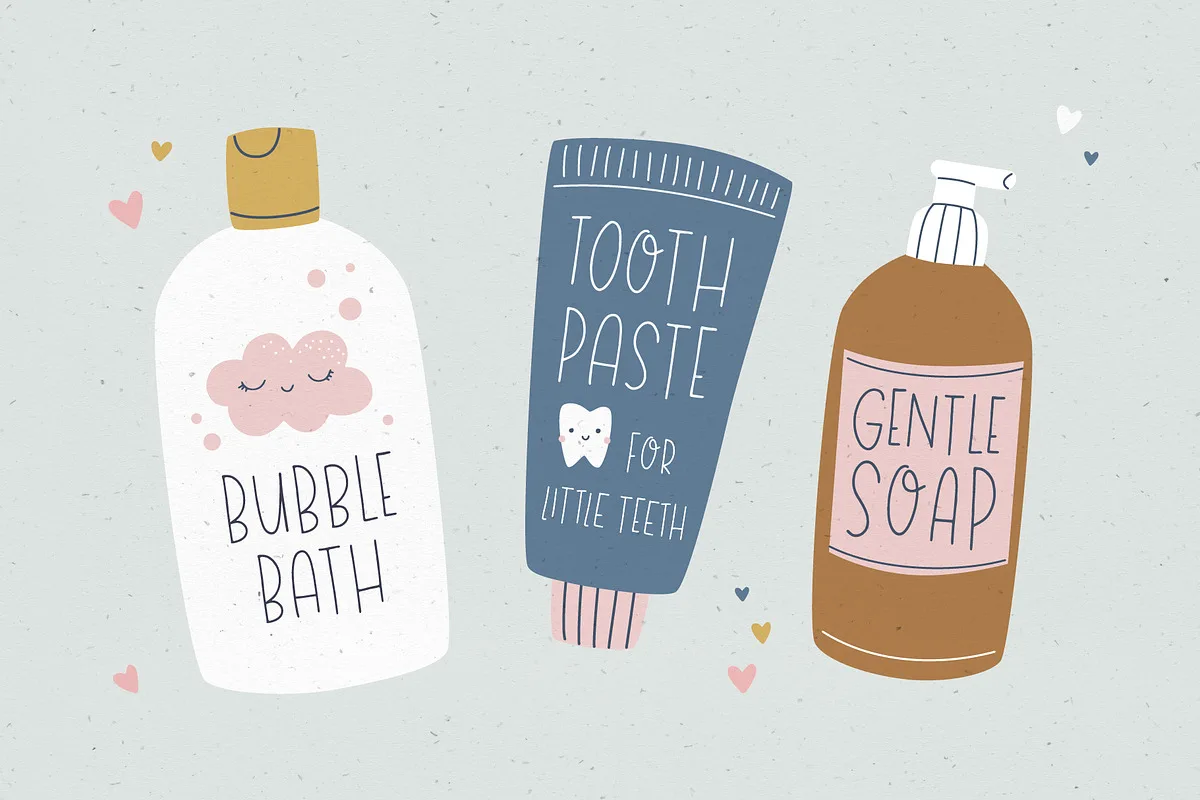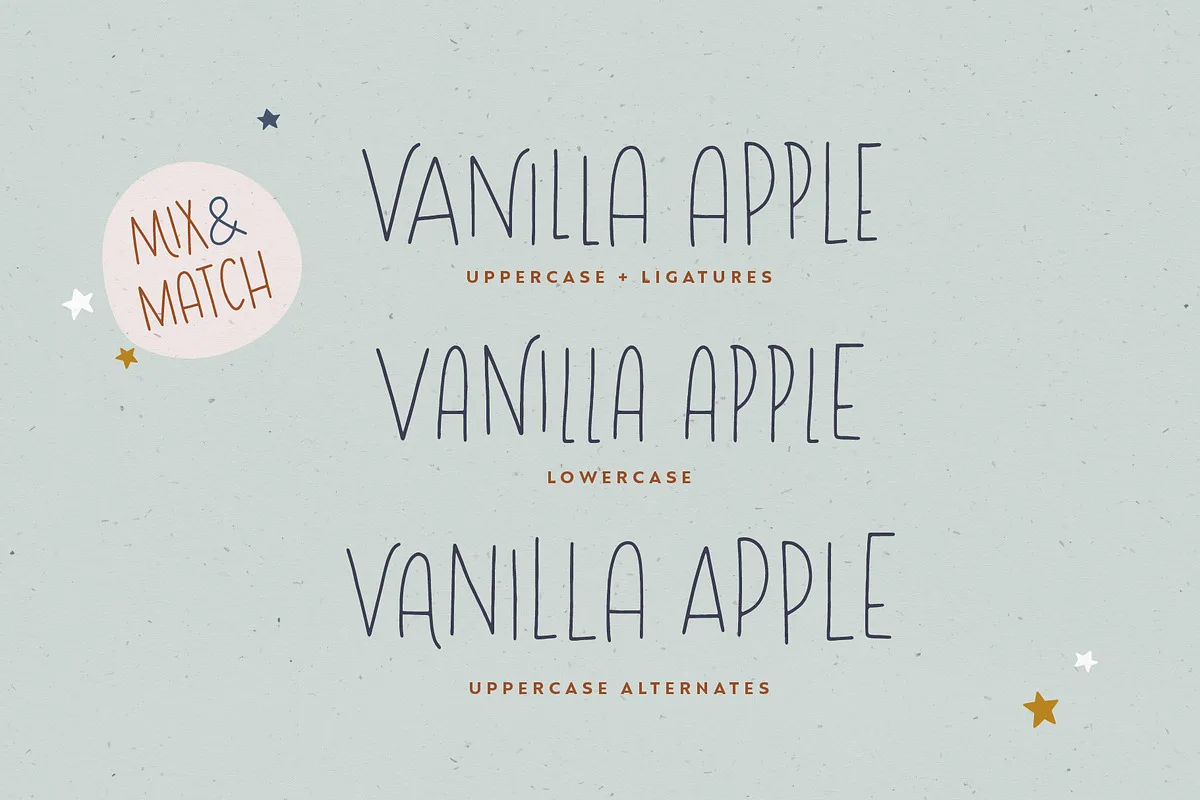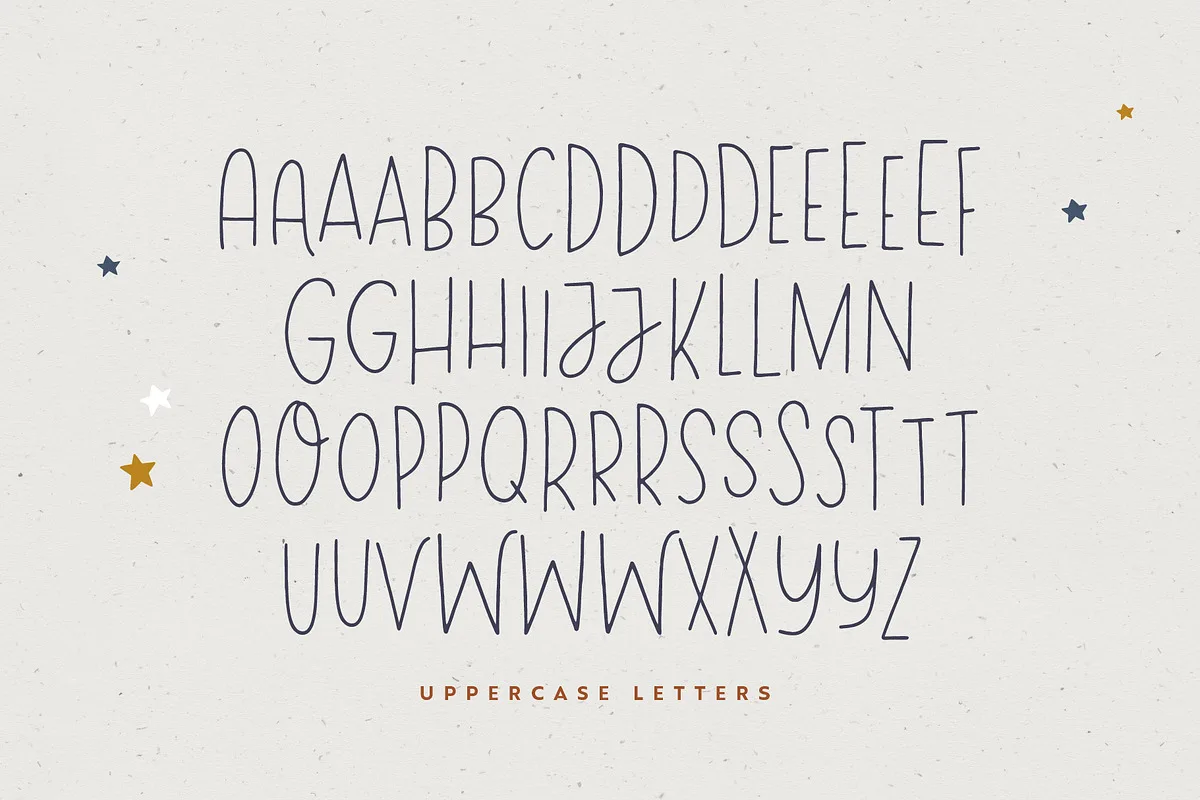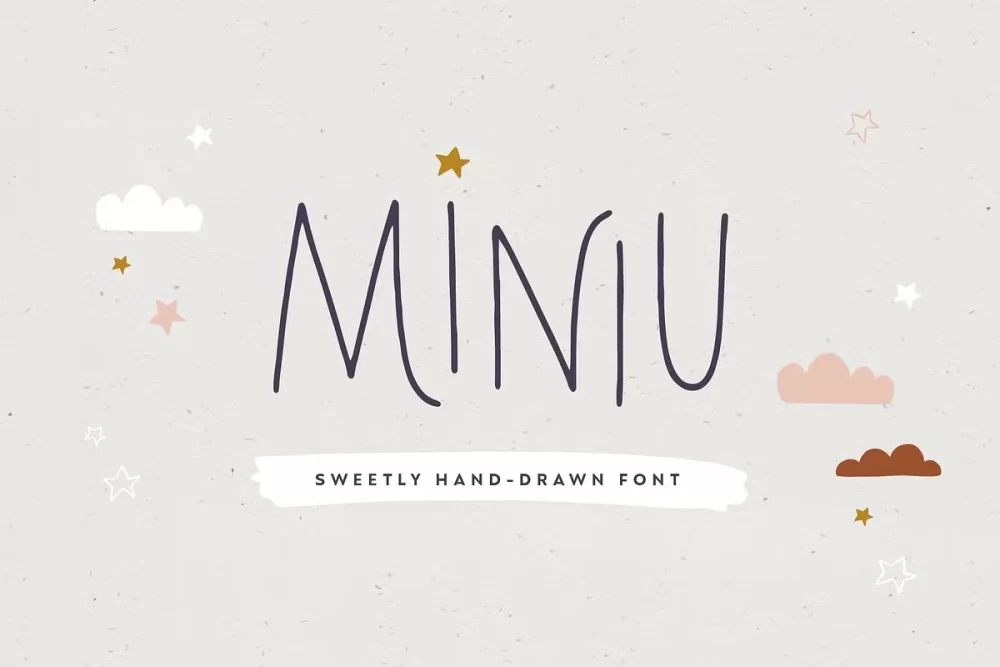
Say hello to Miniu – a sweet hand-drawn display font with plenty of ligatures and stylistic alternatives. Perfect for creating posters, logos, greeting cards, packaging and so much more! Its charming and warm character will help you give your project a truly unique feel. Designed and kerned with care and love to make using it a breeze.
- many stylistic alternates
- plenty of ligatures
- multilingual support with accented characters for international designers